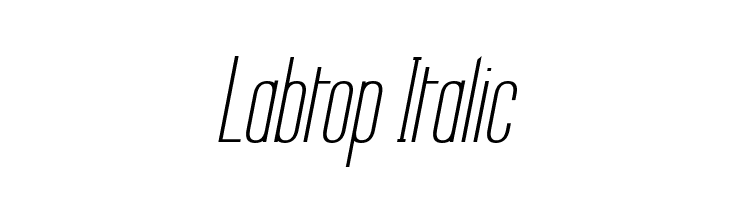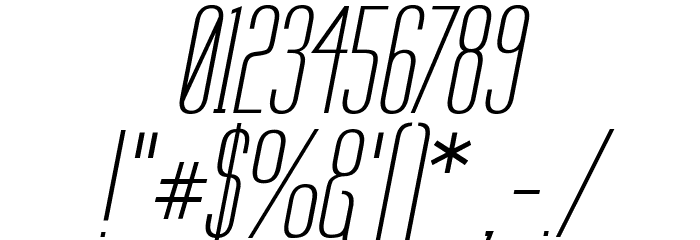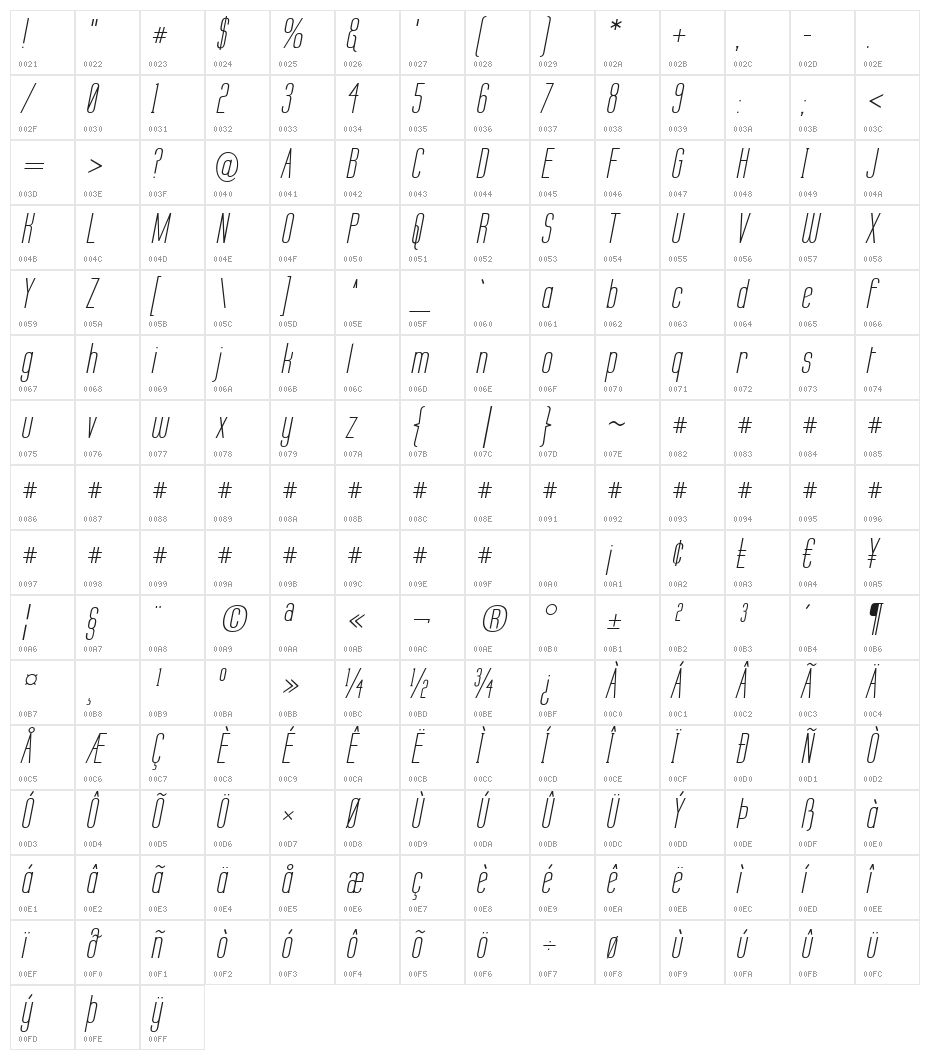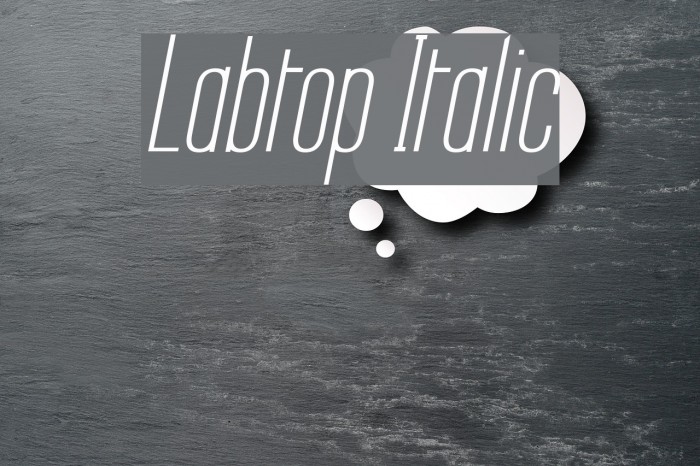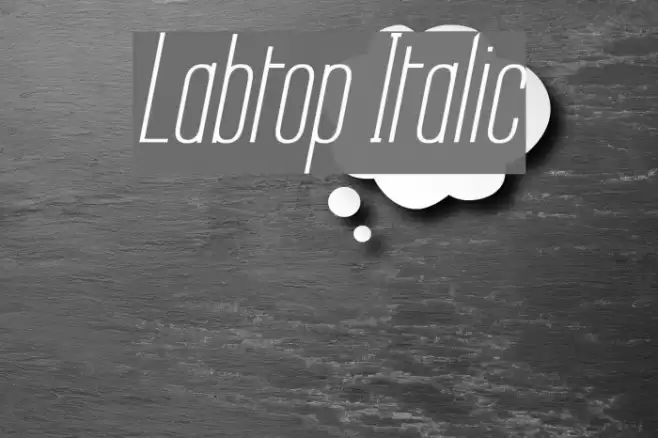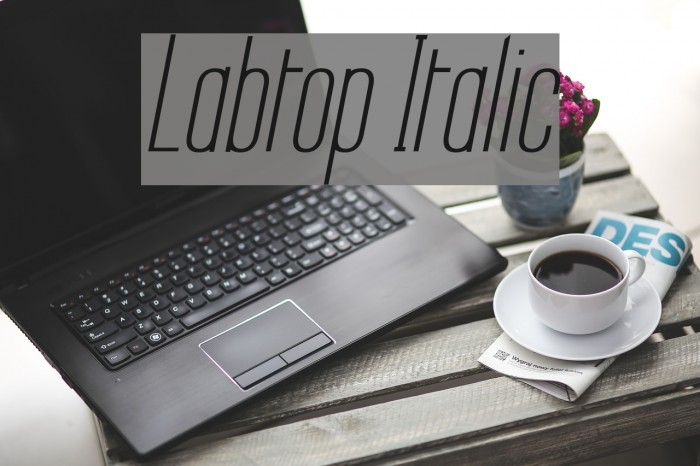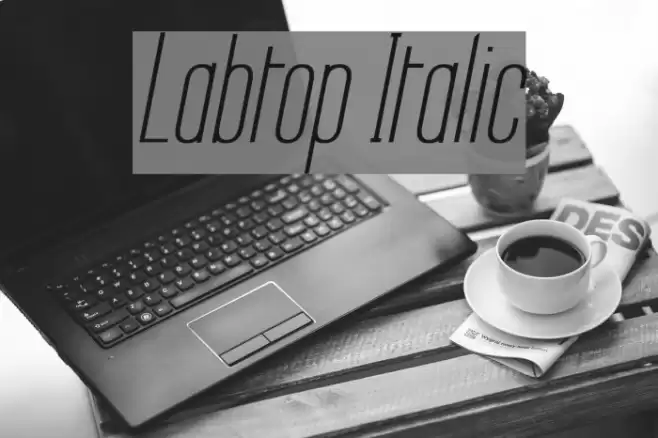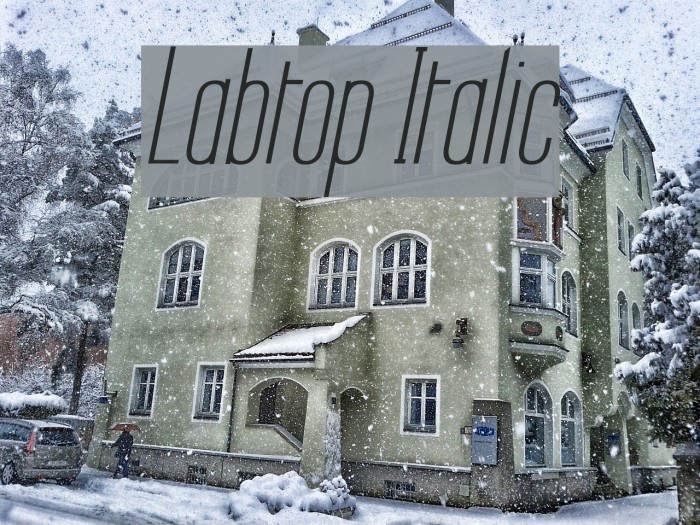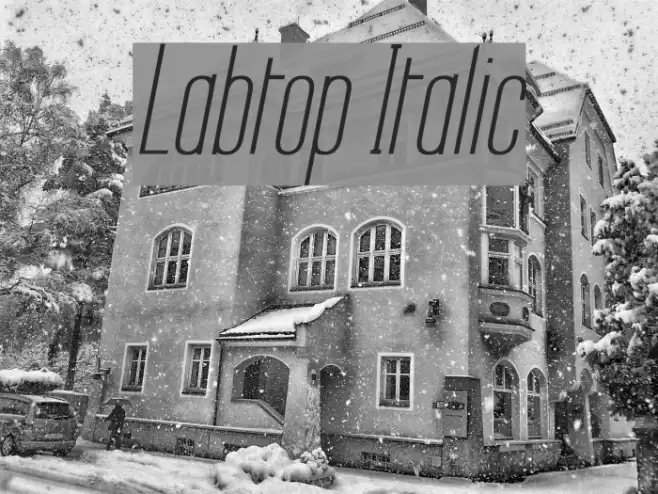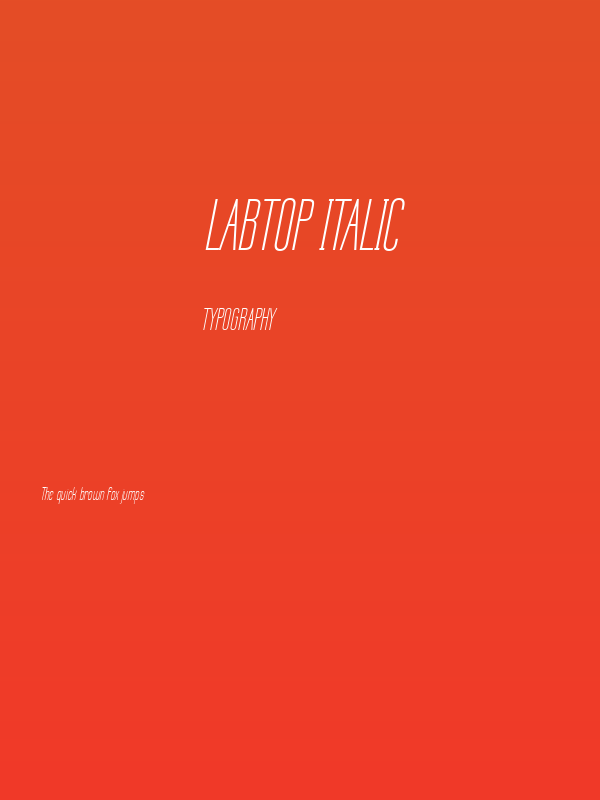
Labtop Italic Font
Labtop Italic Description
This font features a sleek, italicized design with elongated, narrow characters that convey a sense of speed and modernity. The letters are consistently slanted, giving a dynamic and forward-moving appearance. The strokes are thin and uniform, contributing to a clean and elegant look. The font maintains a consistent height across uppercase and lowercase letters, enhancing readability while preserving its stylish flair. The numerals and special characters are designed to match the overall aesthetic, making it suitable for a variety of applications where a contemporary and sophisticated touch is desired.